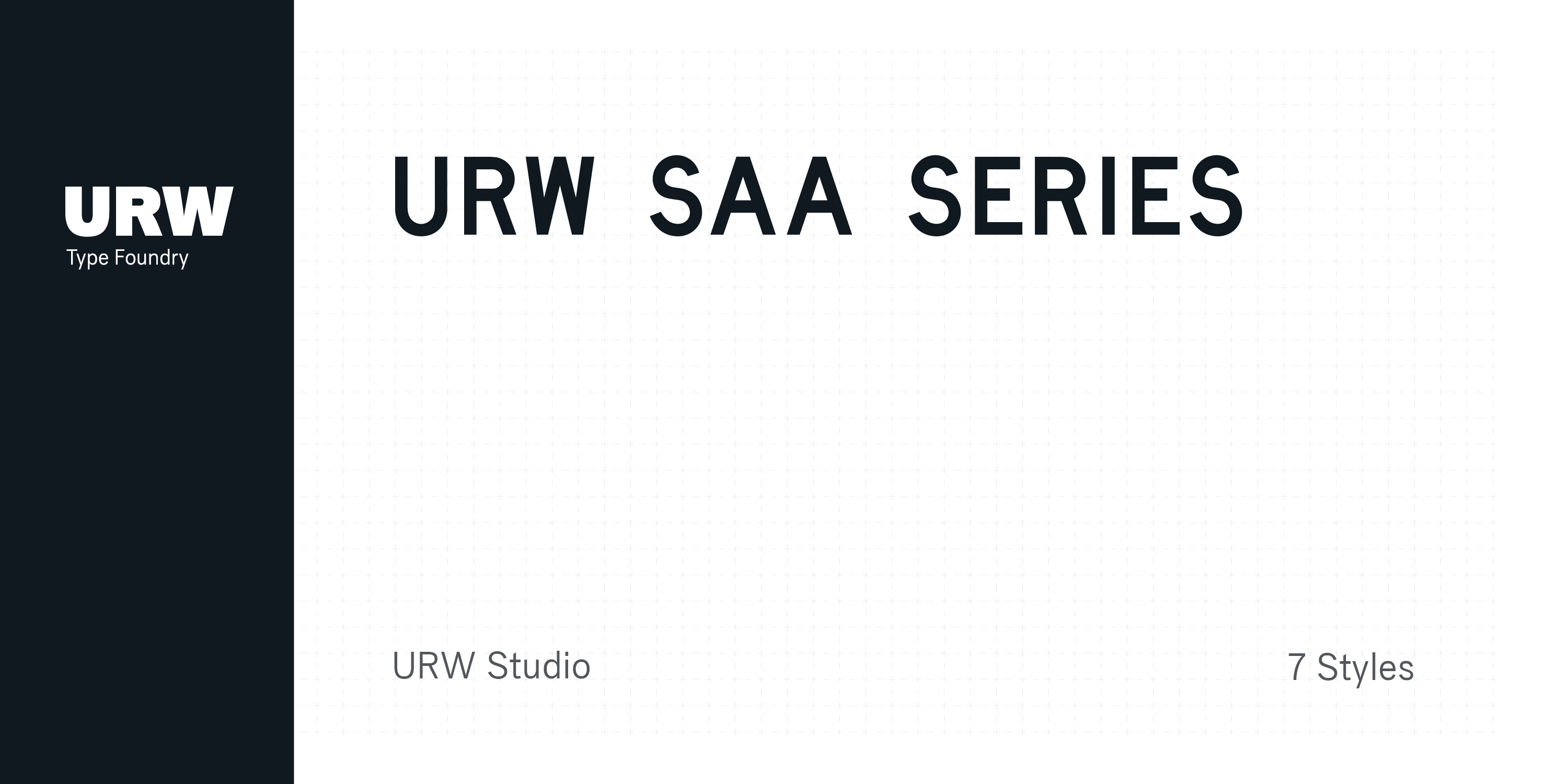
SAA Series A Font is ideal for technical design applications including engineering documentation, architectural drawings, industrial specifications, technical manuals, scientific publications, aerospace branding, precision manufacturing, and professional instrumentation graphics. This specialized typeface delivers clarity and accuracy for mission-critical technical communications.
What makes SAA Series A Font exciting is its systematic design approach that prioritizes technical precision and professional reliability. The font features uniform character spacing, consistent stroke weights, and optimized legibility that ensures accurate information transmission in demanding professional environments. Its technical aesthetic communicates competence and attention to detail that technical audiences expect.
The SAA Series A Font family includes comprehensive technical variations such as Regular, Bold, Condensed, and Extended options, along with specialized characters for technical notation and measurement applications. These systematic options provide complete typographic coverage for complex technical documentation and professional specification requirements.
This precision-engineered typeface represents the highest standards of technical typography and professional communication. Engineering firms and technical organizations choose SAA Series A Font Free Download for its exceptional performance in critical documentation environments. The font's systematic design makes it perfect for technical drawings, specification sheets, and professional documentation that demands absolute clarity. Its reliable functionality ensures accurate information transfer while maintaining the professional aesthetic that defines authoritative technical communication standards.